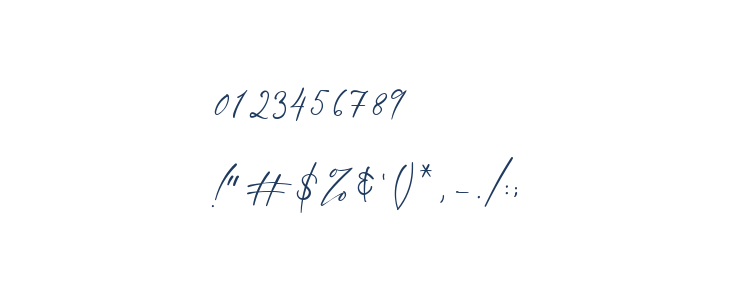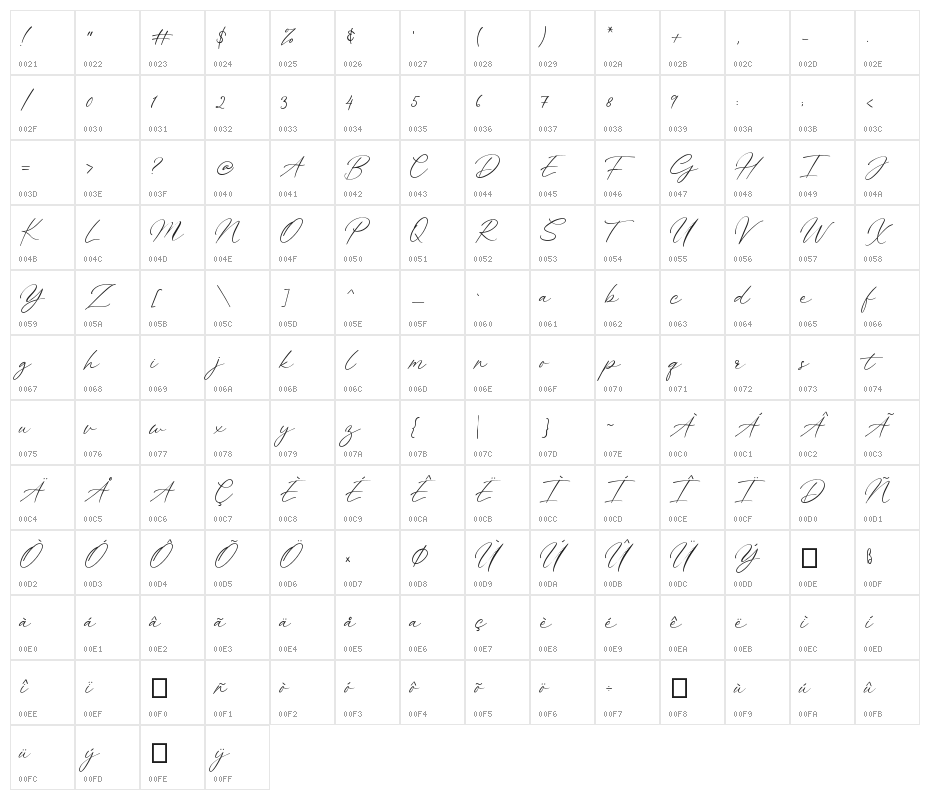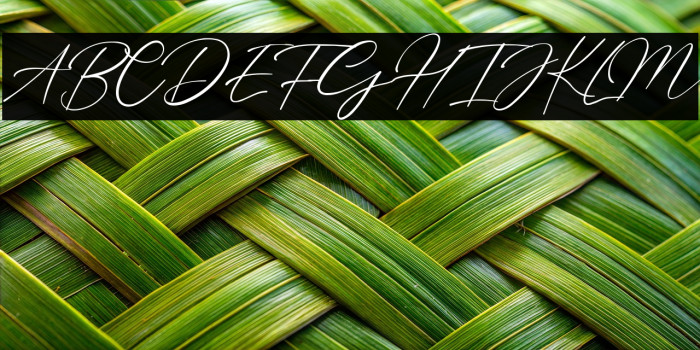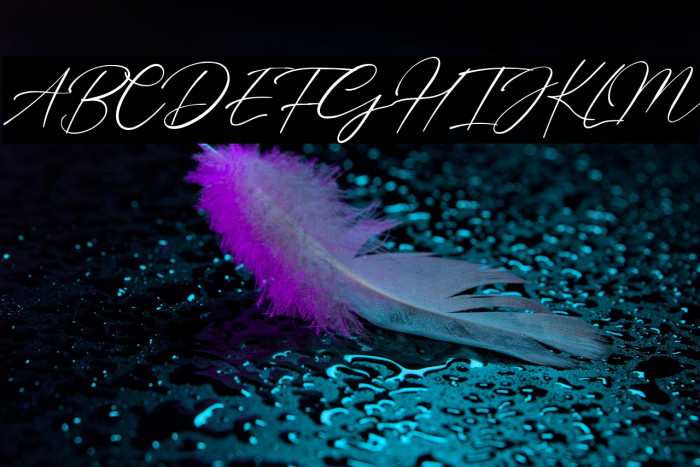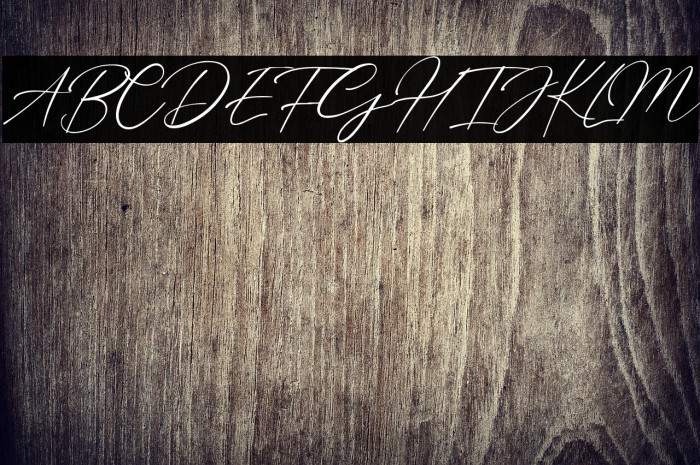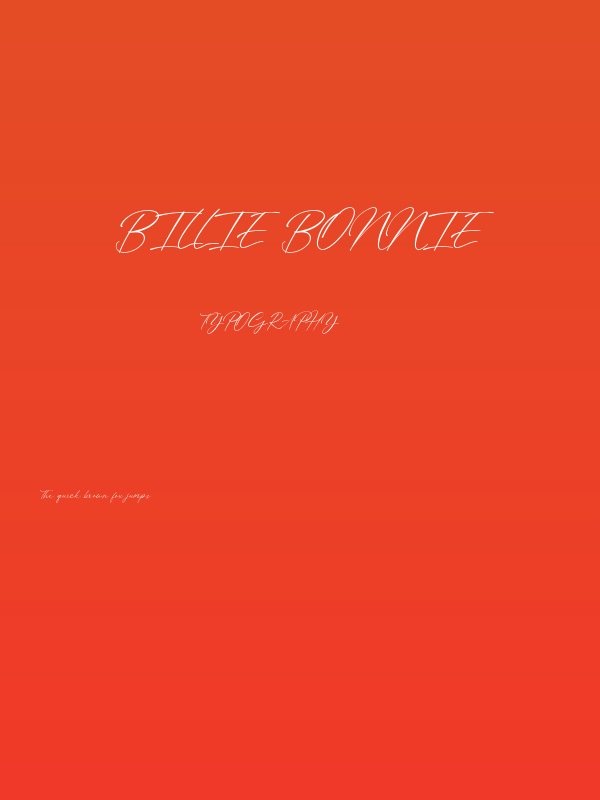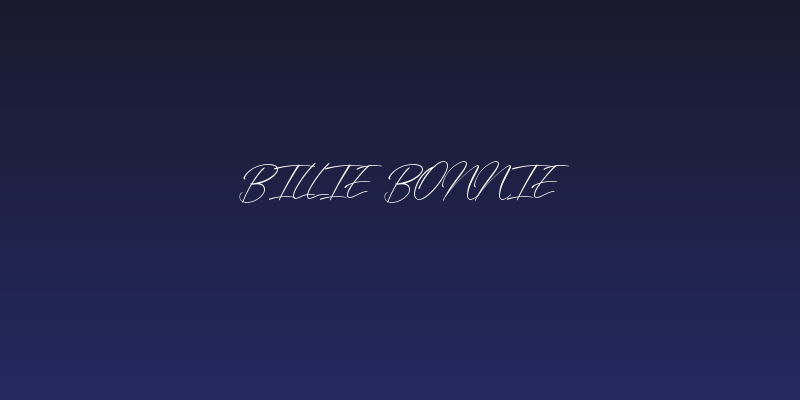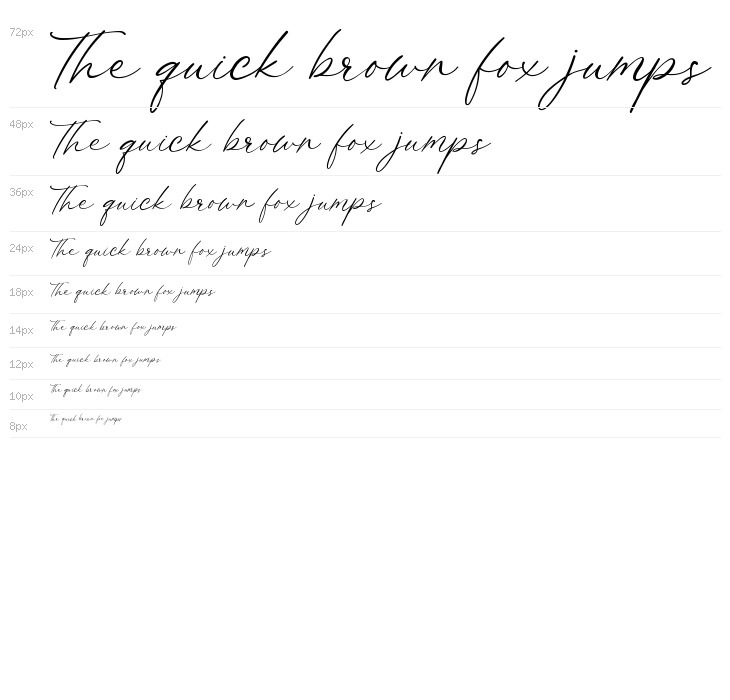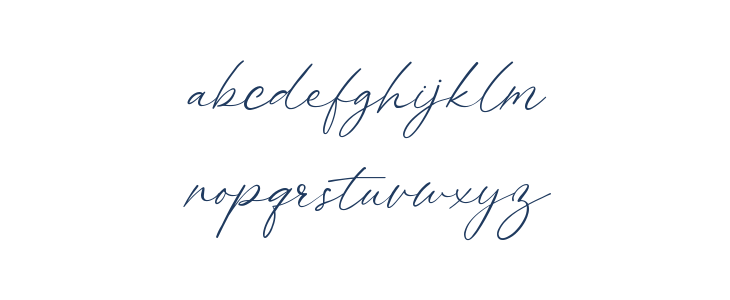
Billie Bonnie Font
Billie Bonnie Description
This elegant script font features a flowing, cursive style with a modern twist. The letters are interconnected with smooth, sweeping strokes that give it a graceful and sophisticated appearance. The uppercase letters are slightly more elaborate, with extended flourishes, while the lowercase letters maintain a consistent fluidity. The numerals and special characters are designed to match the overall aesthetic, ensuring a cohesive look. This font is perfect for adding a touch of elegance and refinement to any project, making it ideal for invitations, branding, and decorative purposes.
| Overall Style | Modern, Elegant |
| Use Case | Invitations, Branding, Decorative |
| Proposed Projects | Ideal for wedding invitations, branding, logos, and decorative design projects. |